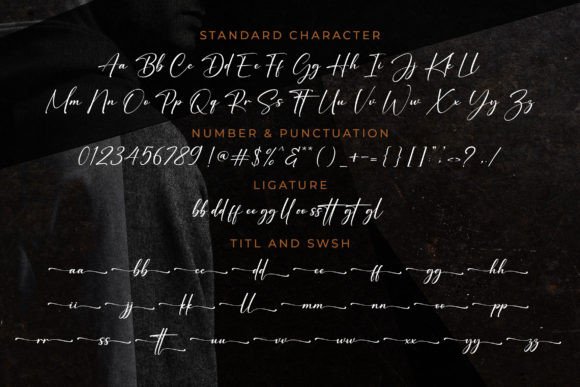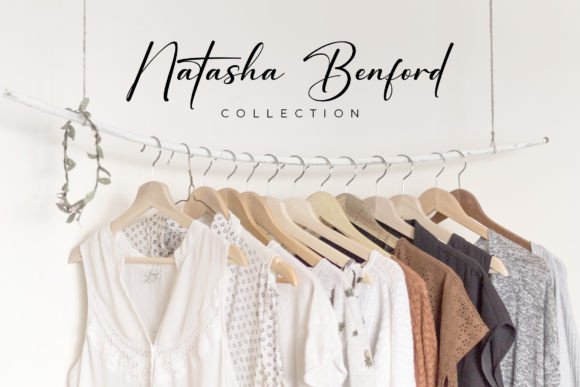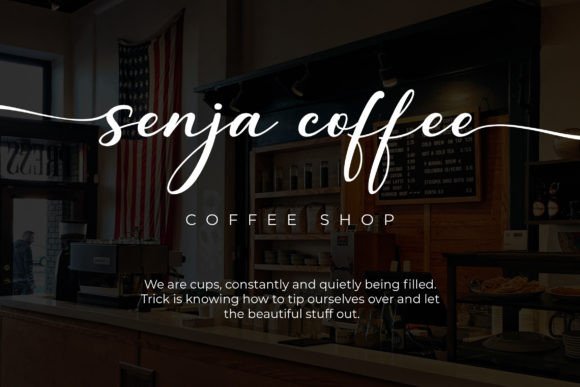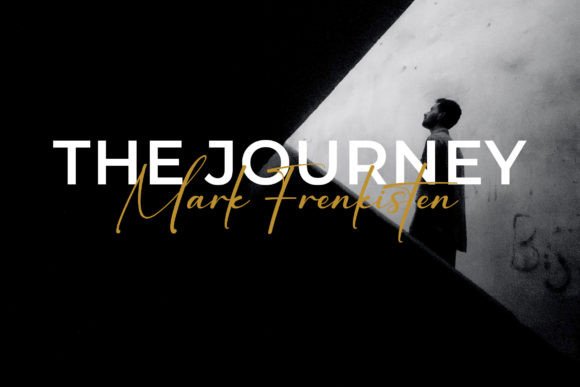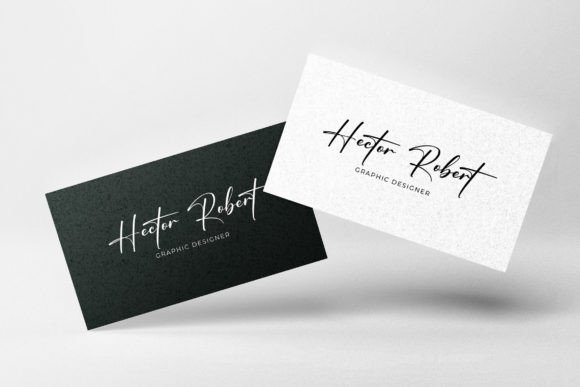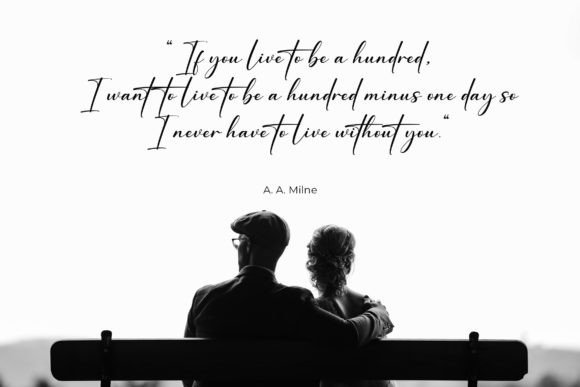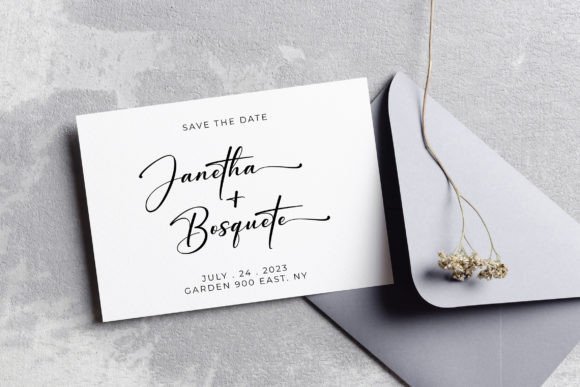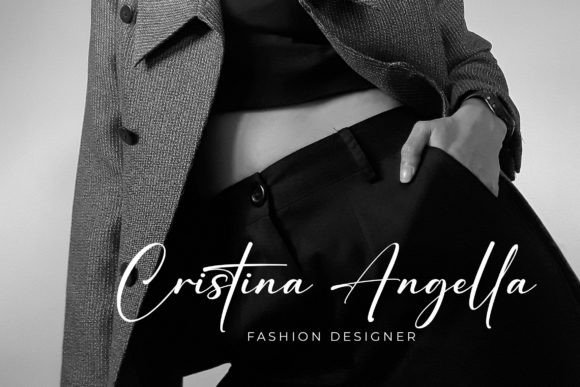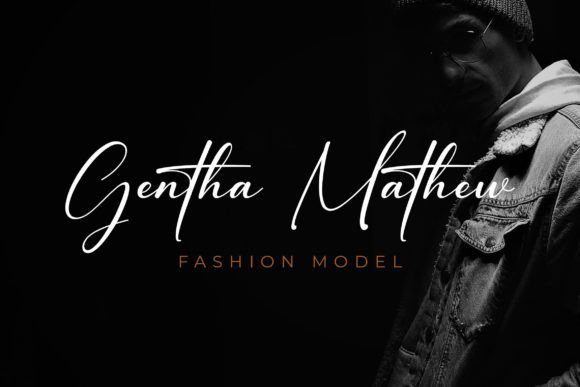
Auttera Signature Font
About Auttera Signature Font
Auttera Signature is a stunning and meticulously crafted script font that radiates timeless beauty and sophistication. Its design boasts a seamless blend of class, elegance, and a contemporary touch, making it a versatile choice for a multitude of creative applications. Whether you’re in need of a font for logo design, branding, invitations, stationery, wedding-themed projects, social media posts, or beyond, Auttera Signature stands ready to elevate your work to new heights.
This font is an embodiment of refined aesthetics, its gracefully flowing characters and precise letterforms exuding a sense of luxury and style. It effortlessly captures attention and exudes a sense of elegance, making it a perfect fit for projects that demand a touch of class.
Auttera Signature’s adaptability knows no bounds. It shines when used in logo design, helping to establish a brand identity that exudes sophistication and timelessness. For invitations and stationery, it adds an element of charm and refinement that sets the stage for memorable occasions.
In the realm of social media, Auttera Signature enhances your posts and messages, ensuring they stand out amidst the noise. Its modern allure and elegant design ensure that your content is not only noticed but also leaves a lasting impression.
In conclusion, Auttera Signature isn’t just a font; it’s a statement of refined taste and style. With its timeless beauty and contemporary appeal, it opens up a world of creative possibilities for your design projects. Whether you seek to convey elegance, sophistication, or a dash of modernity, Auttera Signature is the font that can bring your vision to life. Embrace its grace, and let your creativity flourish.